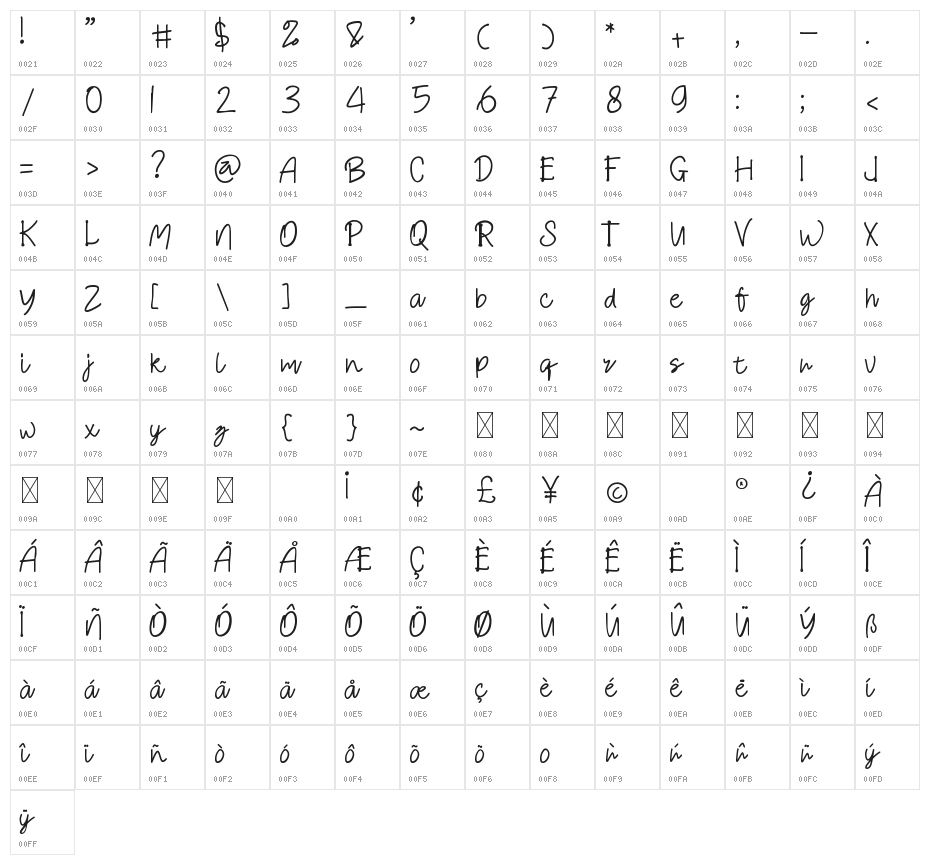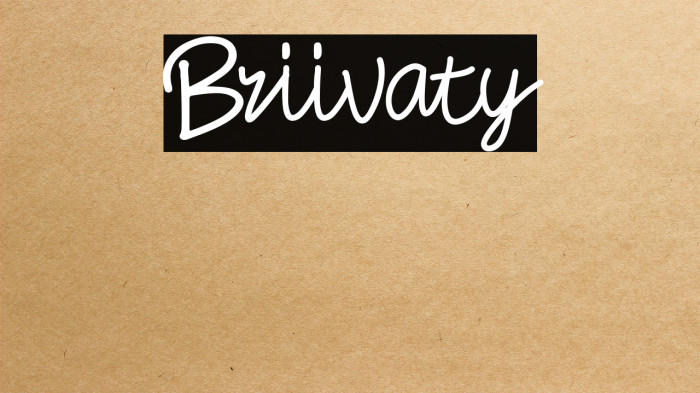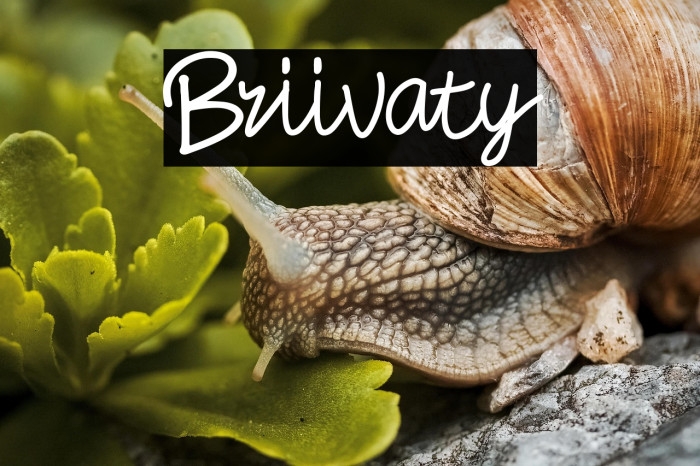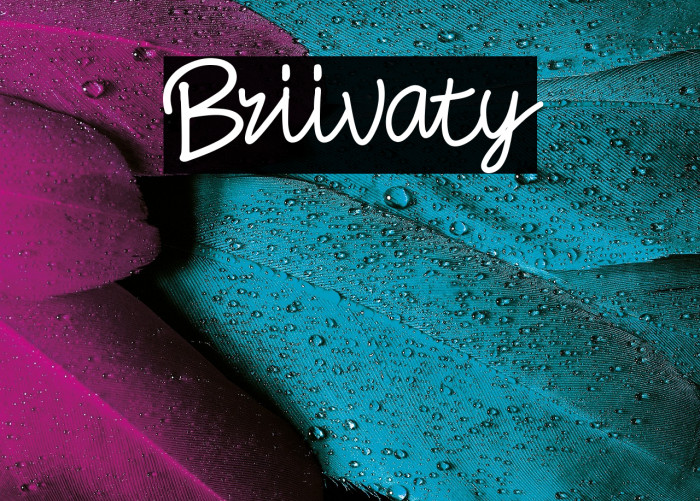
Briivaty Font
Briivaty Description
This font exudes a playful and casual handwritten style, characterized by its smooth, flowing lines and slightly irregular shapes that mimic natural handwriting. The letters are connected in a way that suggests a personal touch, making it ideal for projects that require a friendly and approachable feel. The uppercase and lowercase letters maintain a consistent style, with rounded edges and a slight slant that adds to its informal charm. Numbers and special characters are crafted with the same attention to detail, ensuring a cohesive look across all text elements.
| Use Case | Headlines, Informal text, Personal projects |
| Proposed Projects | Ideal for greeting cards, personal invitations, casual branding, and social media graphics. |